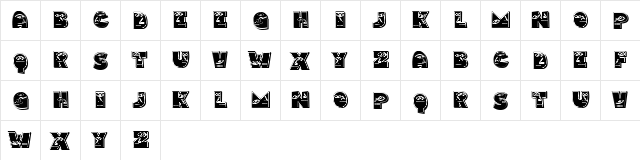
Bahanalia Black Regular
Design Context for Bahanalia Black Typeface
Bahanalia Black is a composed and adaptable typeface that performs quietly and consistently across a wide range of design contexts.